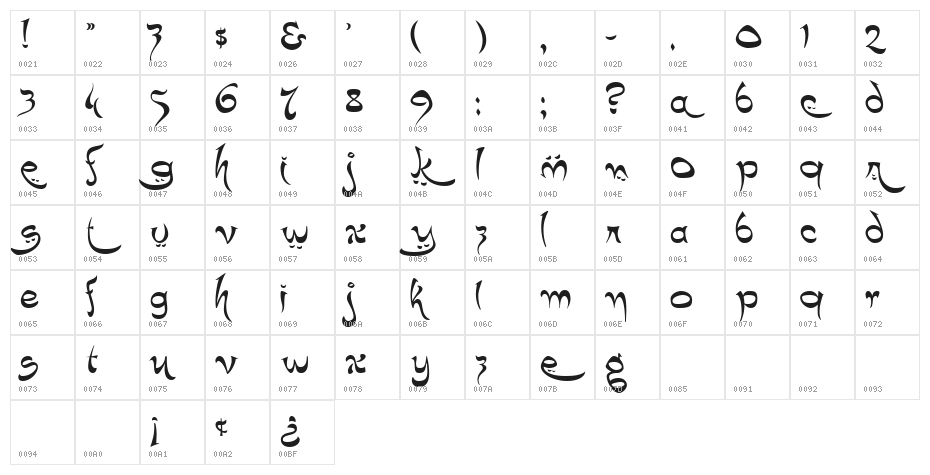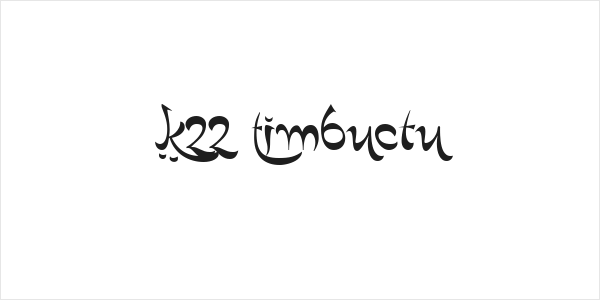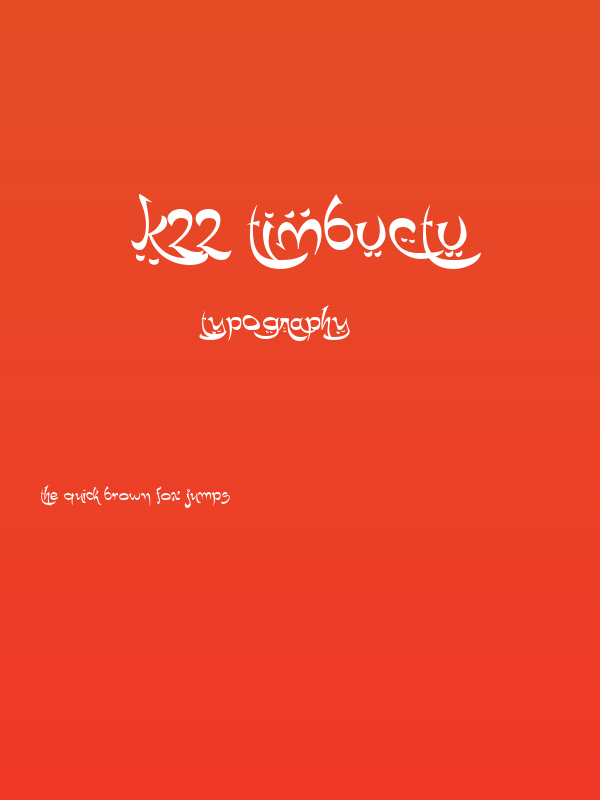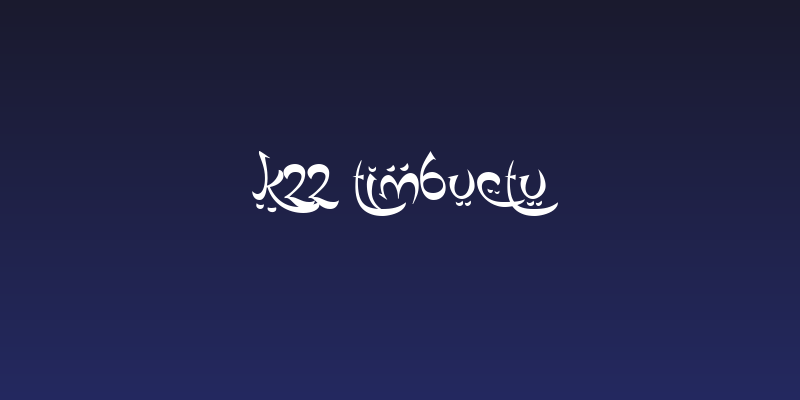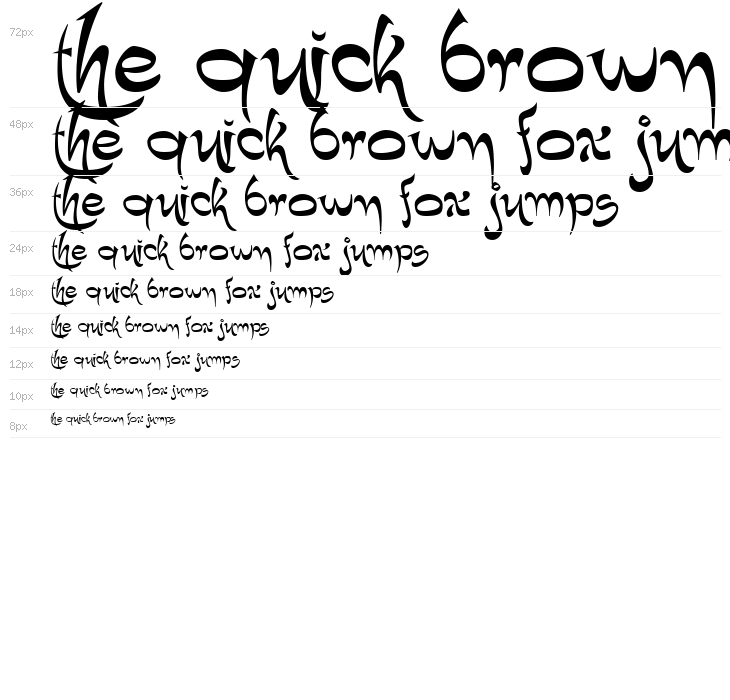
K22 Timbuctu Font
K22 Timbuctu Description
This font features a whimsical and playful design with a unique blend of curves and sharp edges. The characters are adorned with decorative elements that give them a lively and animated appearance. The lowercase letters have a distinctive flair, with exaggerated loops and swirls that add to the font's charm. The uppercase letters maintain a consistent style, complementing the lowercase with their bold and expressive forms. Numbers and special characters follow the same playful theme, ensuring a cohesive look across all text. The font's artistic style makes it suitable for creative and informal projects, where a touch of fun and personality is desired.